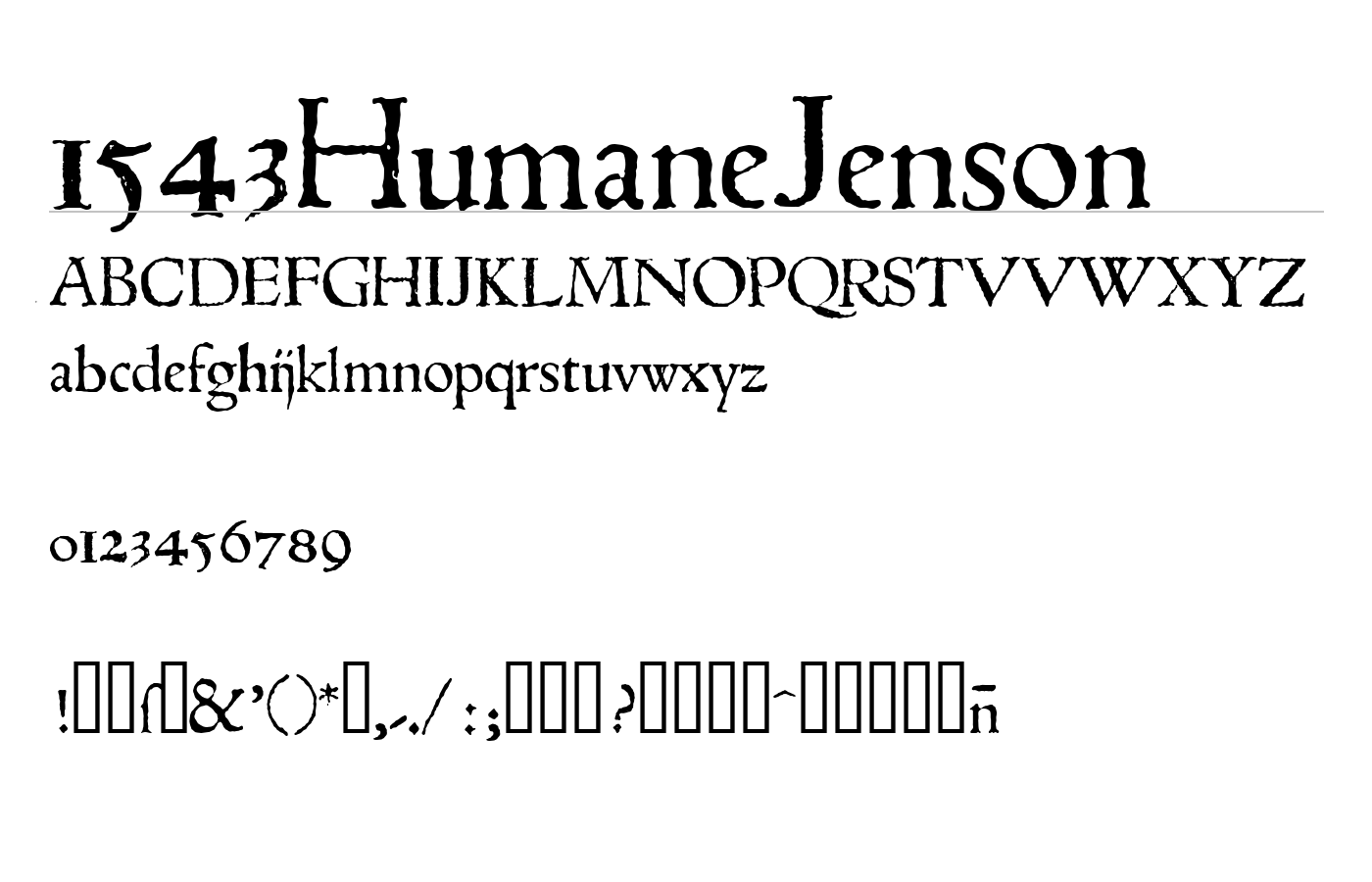
1543HumaneJenson is a serif font with a classic, hand-crafted feel, reminiscent of old-style typefaces with its organic, slightly irregular strokes. It has a moderate contrast between thick and thin lines and delicate, bracketed serifs, giving it a warm, historical character that works beautifully for projects seeking a vintage or literary touch. This font is ideal for elegant editorial designs, book typography, and branding that wants to convey tradition, craftsmanship, and authenticity.